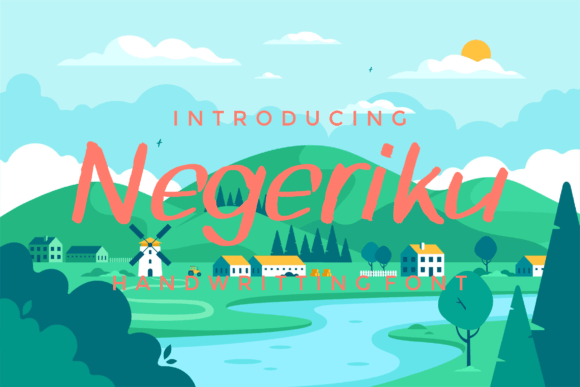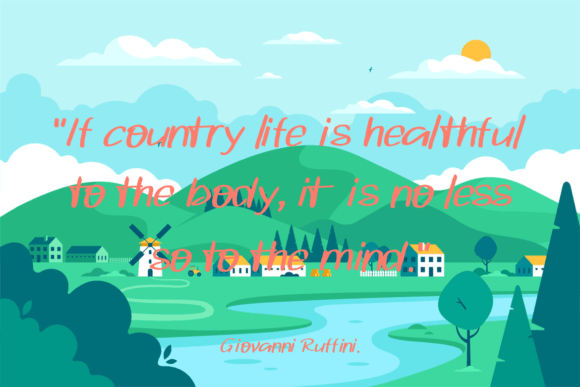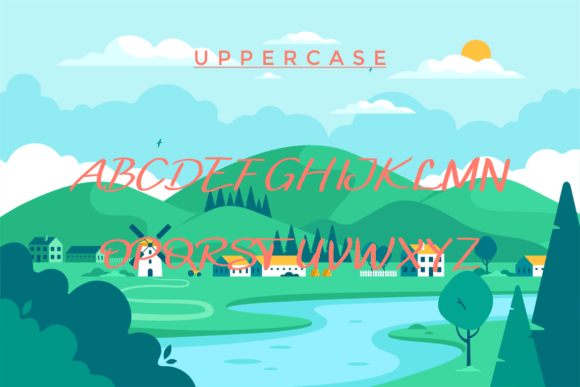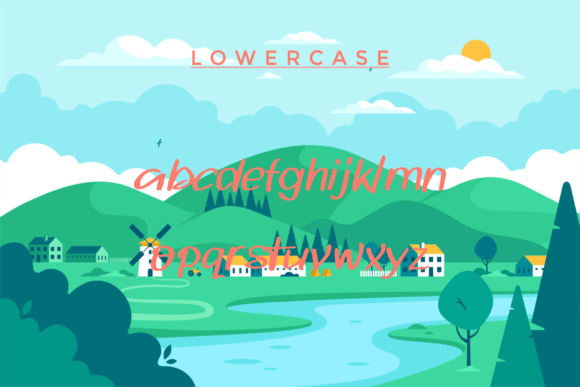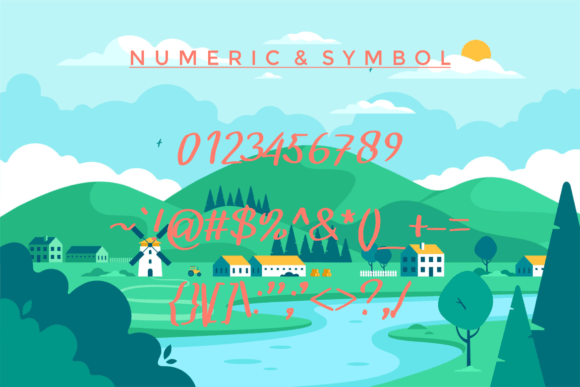
Negeriku Font
About Negeriku Font
The Negeriku Font Download is a bold handwriting brush font created with an authentic and original touch. Featuring powerful strokes and strong details, Negeriku is designed to give your projects a sharp and modern appearance. Its handcrafted brush style adds energy and uniqueness, making it an ideal choice for designs that require impact and personality.
This font is fully equipped with uppercase and lowercase letters, numerals, punctuation, and symbols, ensuring that it can handle a wide variety of creative applications. Its edgy yet versatile look makes it suitable for both digital and print projects, helping you craft designs that stand out with confidence.
Features of Negeriku Font
When you choose the Negeriku Font Download, you’ll enjoy:
• Handwriting brush style with bold, authentic strokes
• Complete character set with uppercase, lowercase, numbers, and symbols
• Sharp, strong lines that create impactful designs
• Versatility for modern, artistic, and professional use
• Dynamic appearance that adds personality to any project
Best Uses for Negeriku Font
The Negeriku Font Download is incredibly adaptable and works perfectly for a range of creative needs, including:
• Titles and typography – Bold lettering that grabs attention instantly
• Posters and flyers – Strong brush style ideal for striking promotional designs
• Magazines and brochures – Add energy and modern flair to editorial layouts
• Product packaging – Perfect for food, beverages, fashion, or lifestyle brands
• Websites and digital graphics – Stylish brush lettering for impactful online visuals
• Logos and branding – Create edgy and confident identities for creative businesses
• Event promotions – Flyers and banners that make a bold statement
Why Choose Negeriku Font
The Negeriku Font Download is unique because it combines handcrafted authenticity with bold design. Unlike generic typefaces, its brush lettering conveys strength, creativity, and individuality. Its sharp strokes ensure your designs never go unnoticed, while its balanced character set maintains readability and professionalism.
Designers appreciate Negeriku for its raw energy and flexibility, making it equally effective in artistic projects and commercial branding. Whether used in bold headlines, packaging labels, or digital graphics, it brings originality and power to every design.
The Negeriku Font Download is a bold handwriting brush typeface crafted to deliver strength, originality, and sharpness to your work. With its complete set of characters, striking brush texture, and versatile applications, it’s the perfect choice for posters, packaging, magazines, websites, and more.